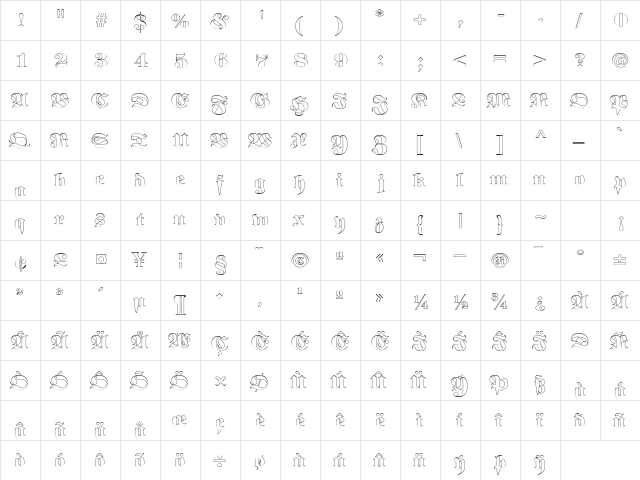
BerlinerOutline Regular Font Preview
BerlinerOutline Regular
Design Context for BerlinerOutline Typeface
BerlinerOutline is built around its visual character rather than neutral utility — its distinctive forms are designed to make an impression at display sizes.
Font Pairing: Pair with a clean neutral sans-serif for body copy to let BerlinerOutline's character lead without overwhelming the composition.
Pro Tip: Treat BerlinerOutline as the centrepiece of your typographic hierarchy. One strong heading set in a decorative face can carry an entire layout.